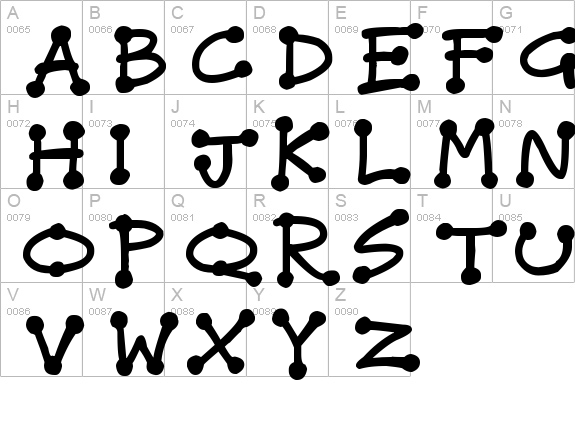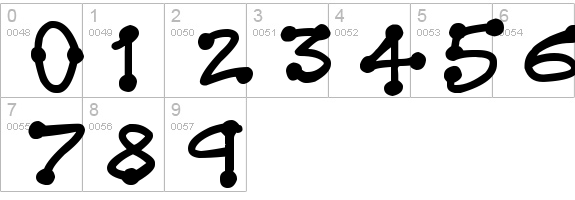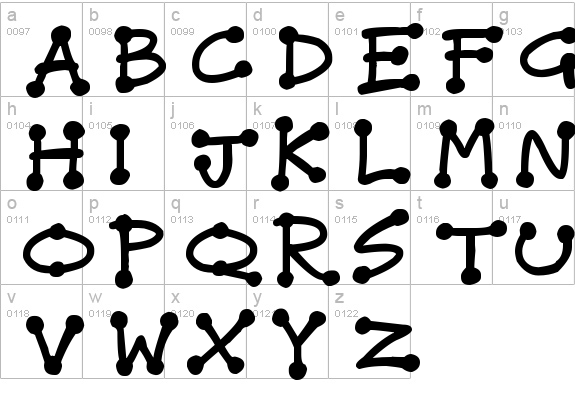
Dot Stick Doodles font is a charming and whimsical typeface that is perfect for adding a touch of fun and creativity to your projects. This delightful font features a playful mix of dots and sticks that create a unique and eye-catching style. Whether you're designing invitations, greeting cards, posters, or any other creative project, Dot Stick Doodles font is sure to make your text stand out.